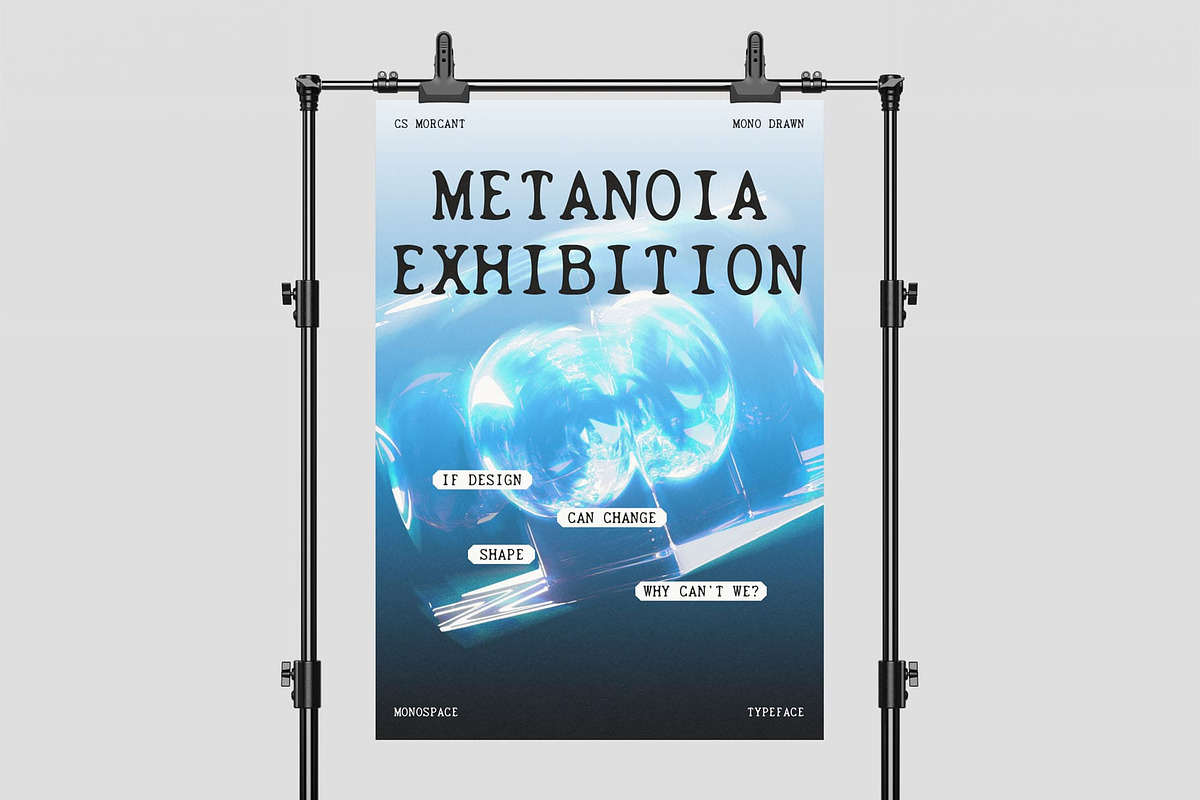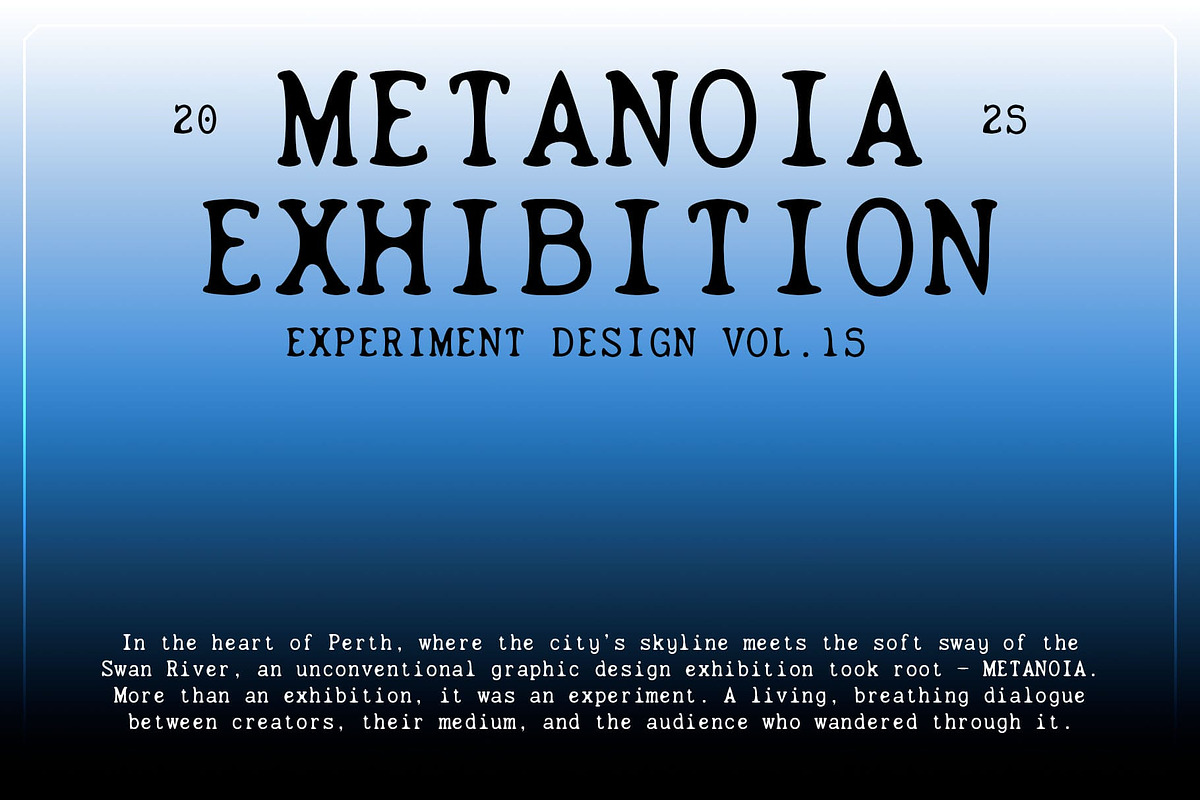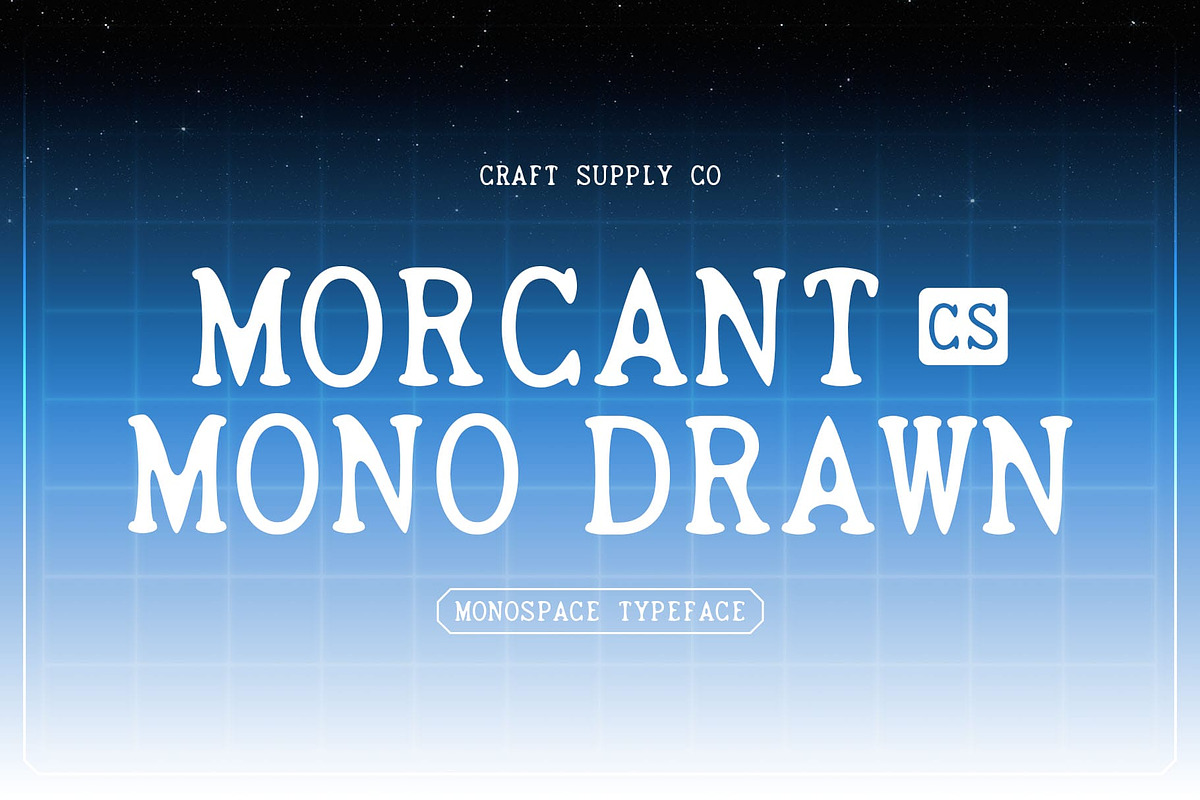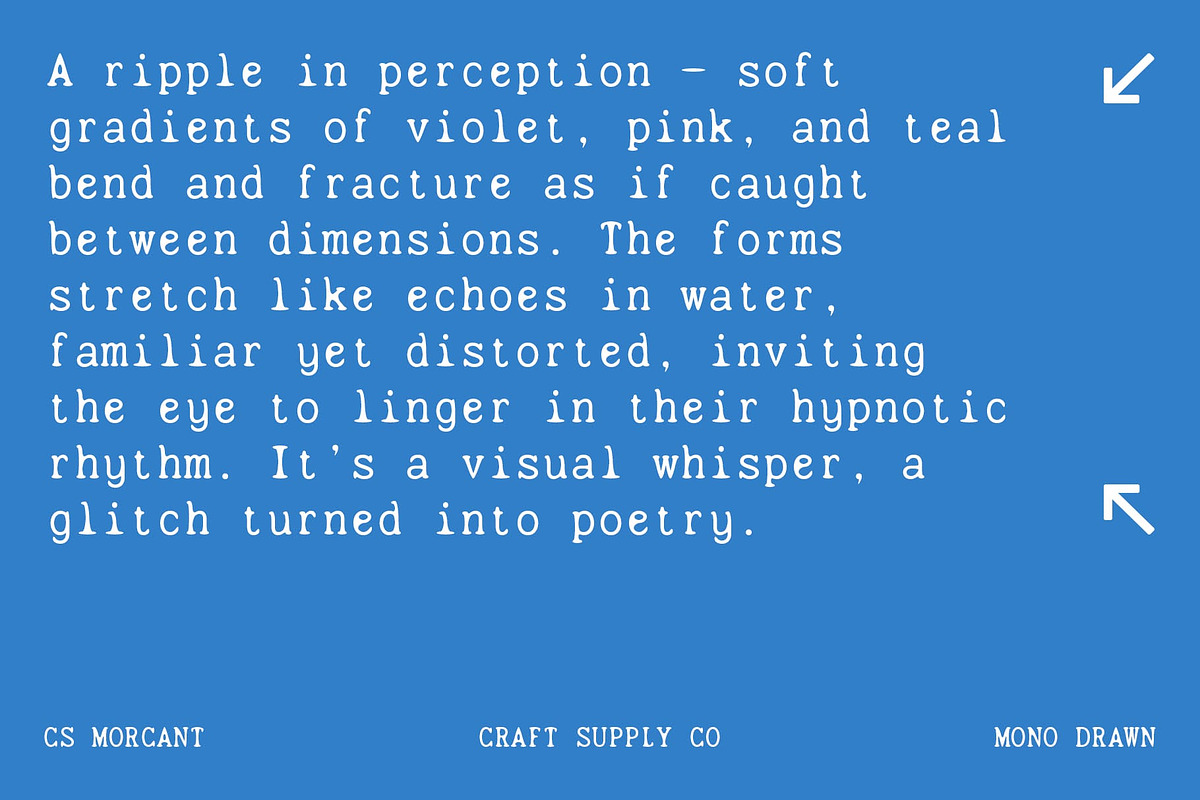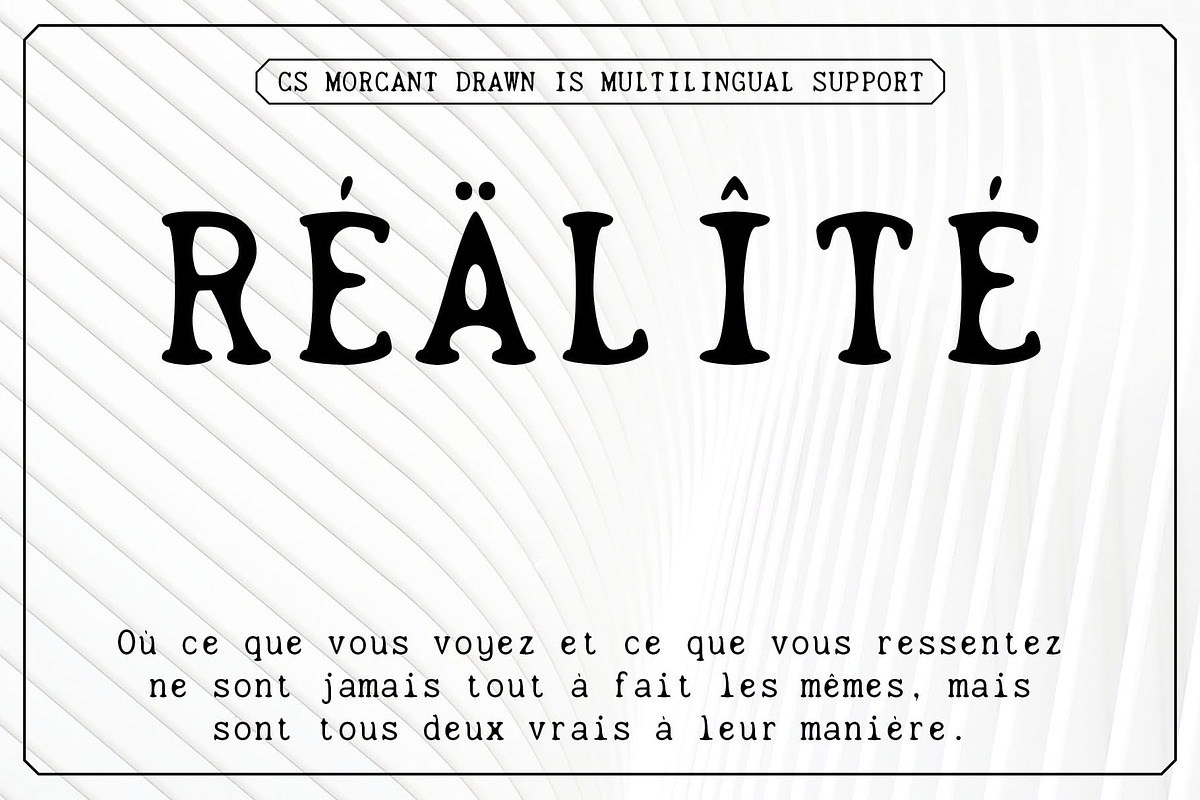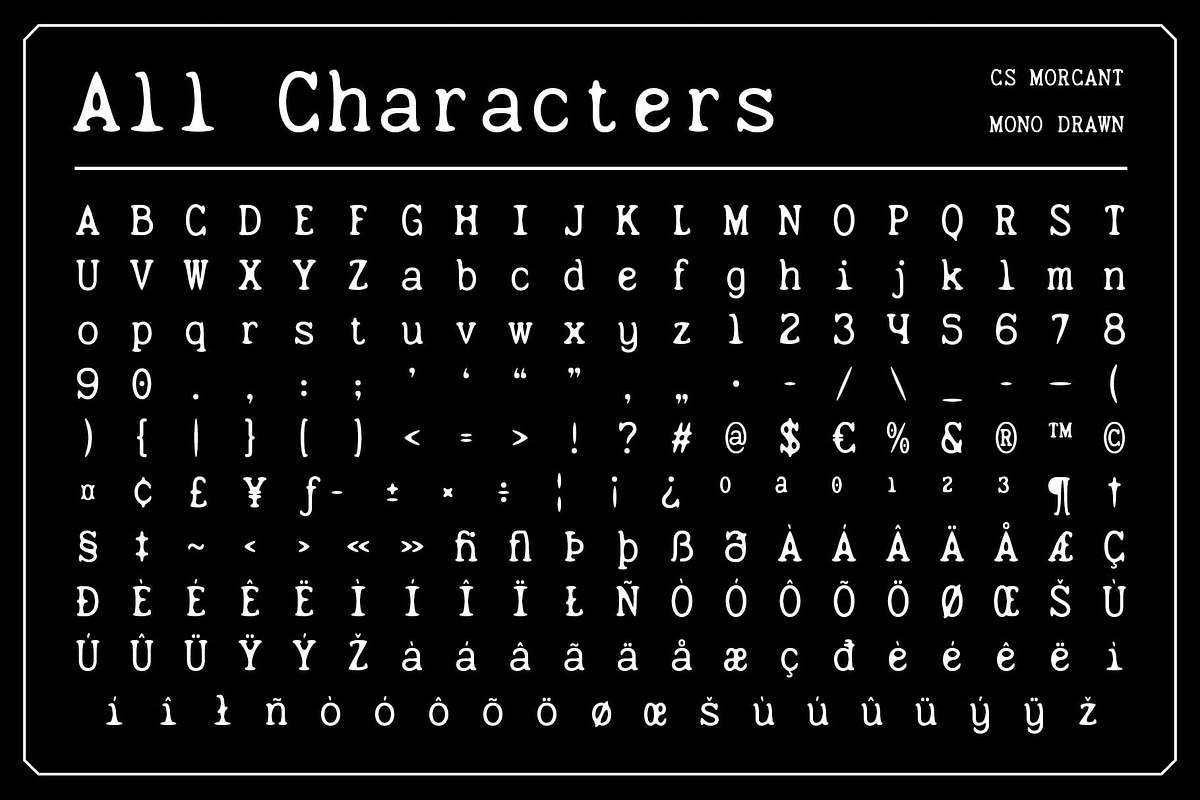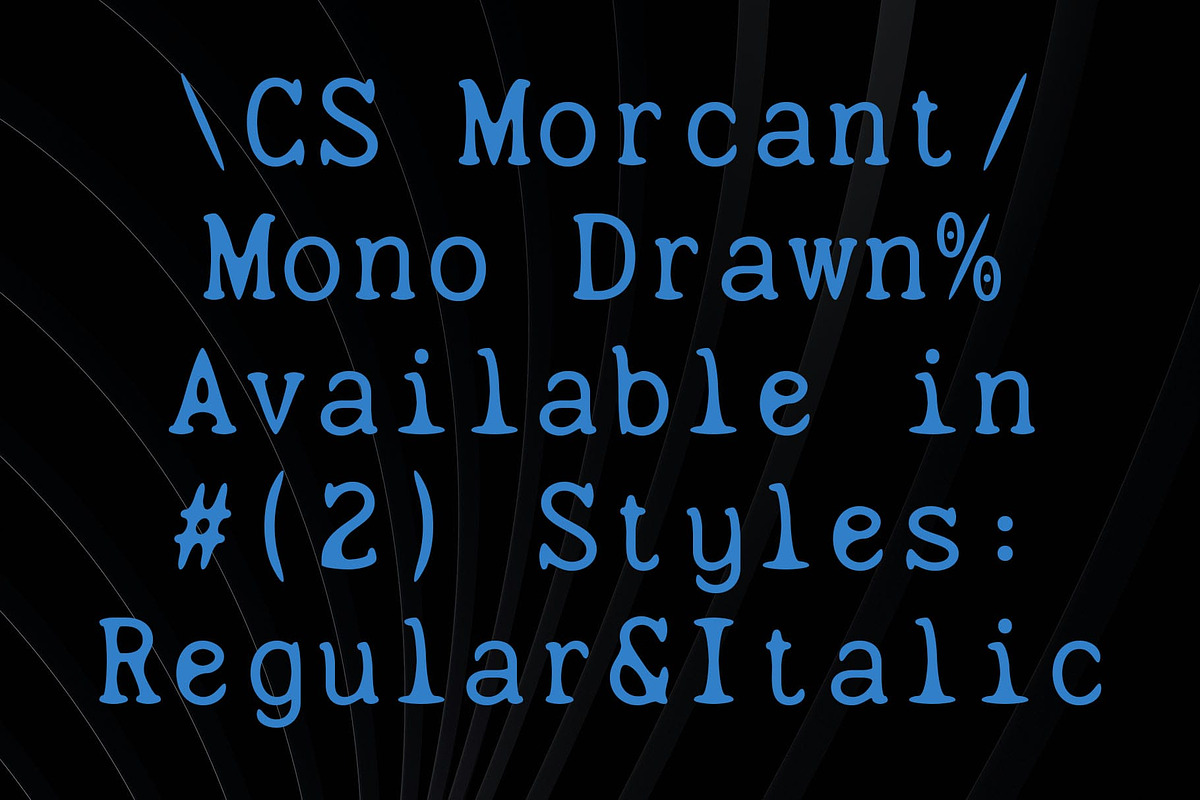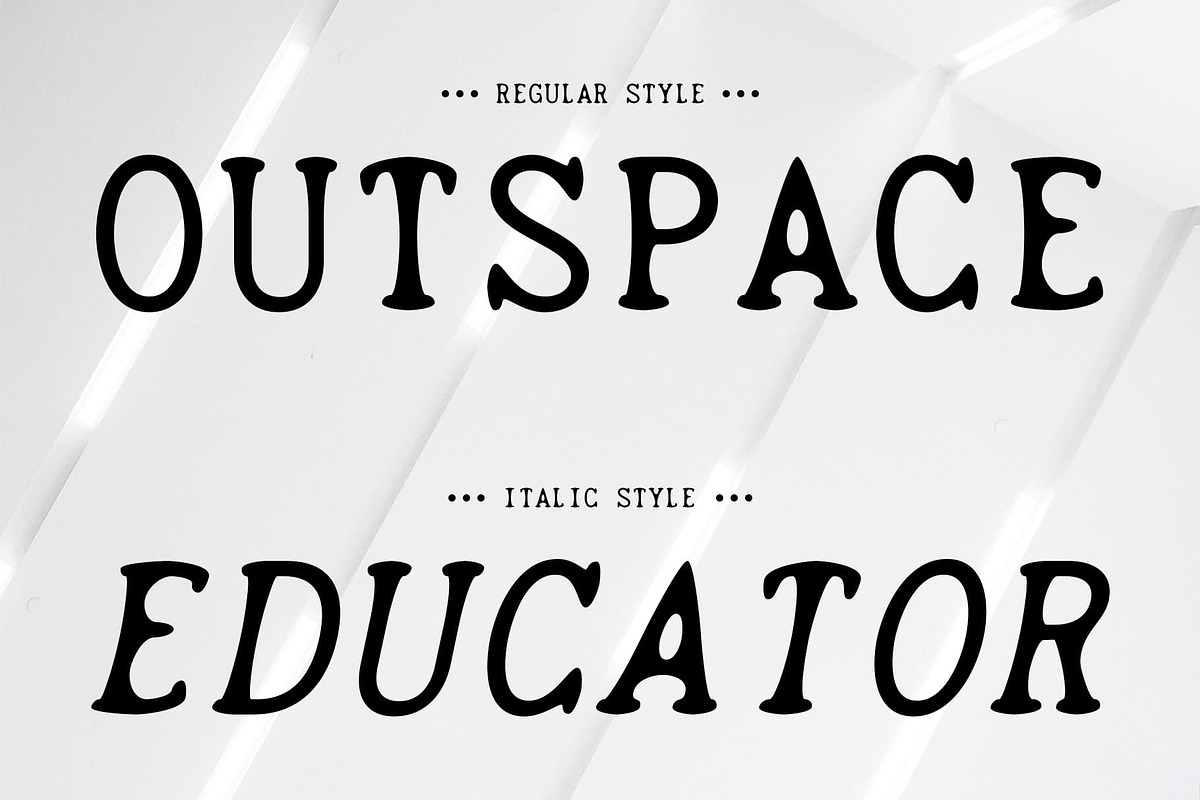
CS Morcant Mono Drawn
CS Morcant Mono Drawn – Modern Serif with Artistic Handmade Charm
Clean and Contemporary Letterforms This font features modern serif monospaced letterforms that are both precise and visually balanced. Its clean structure ensures high readability, making it ideal for projects that require clarity and professionalism while maintaining a stylish edge.
Artistic Drawn Effect The font is enhanced with a subtle drawn effect that adds an organic, handmade quality. This delicate artistic detail brings a sense of individuality to each character, transforming standard monospaced text into a design element with personality and charm.
Professional Yet Creative This unique and expressive font strikes a harmonious balance between professional sophistication and creative expression. It works perfectly for designers who want a modern, polished look without sacrificing a unique, handcrafted feel. The combination of structure and artistry makes it versatile for a wide range of creative applications. This font excels across multiple design contexts, from editorial layouts and branding to posters, packaging, and digital projects.
Balanced Elegance and Readability With a refined serif structure and low-contrast detailing, this monospaced font remains readable and elegant even at small sizes. Its readability, paired with subtle artistic flair, ensures your text communicates both clarity and personality, enhancing any visual composition.